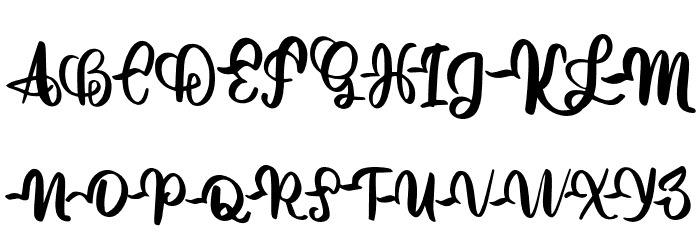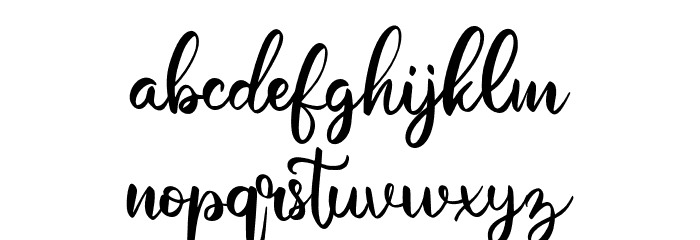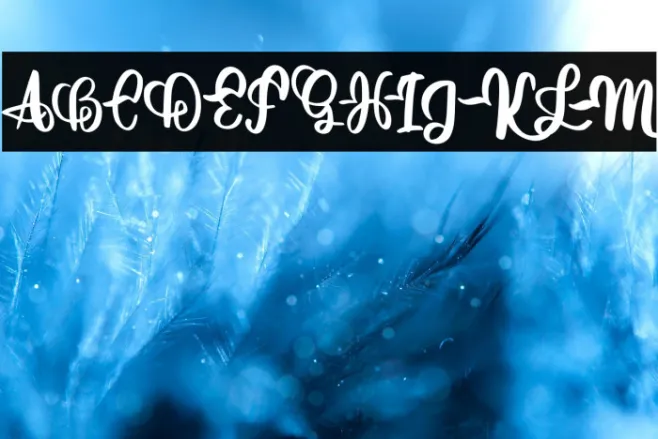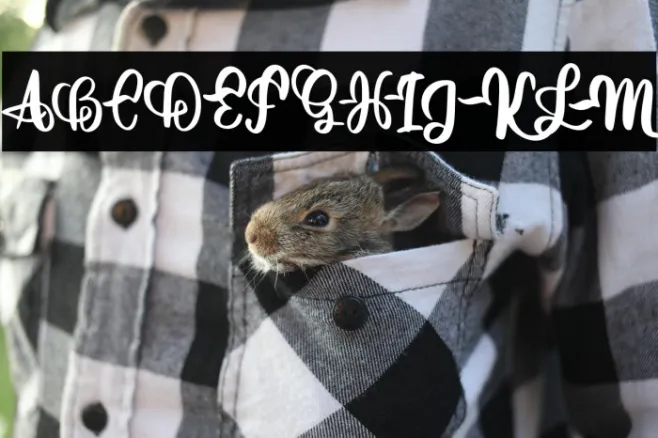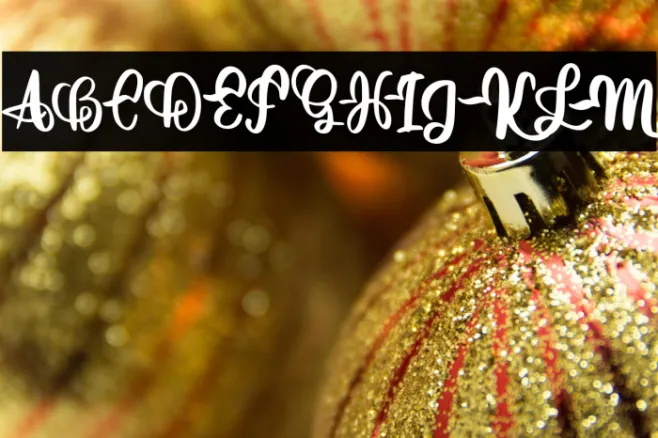
GotreFREE Font
This font features a playful and artistic script style with a flowing, cursive design. The uppercase letters are bold and expressive, with unique flourishes that add a whimsical touch. The lowercase letters maintain a consistent style, offering a smooth and elegant appearance. The font's overall look is dynamic and lively, making it suitable for creative and informal projects. The characters are well-spaced, ensuring readability while maintaining the font's decorative nature. This font is perfect for adding a personal and artistic flair to any design.
A playful and artistic script font with bold, expressive characters.
- Font: GotreFREE
- Proposed Projects: Ideal for greeting cards, invitations, logos, and creative branding projects.
- Category: Script
- Use Case: Logos, Headlines, Invitations